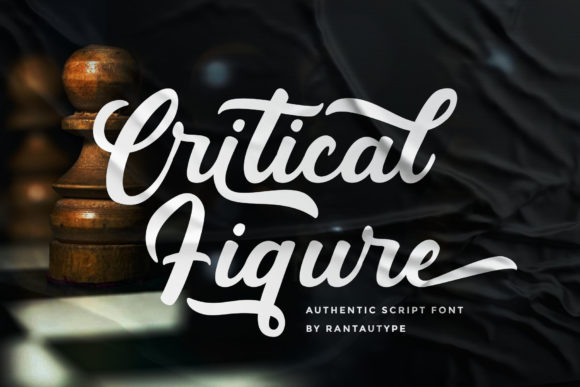
About Critical Figure Font
Critical Figure is a sweet and friendly handwritten font. Its natural and unique style makes it incredibly fitting for a large pool of designs. The only limit is your imagination!